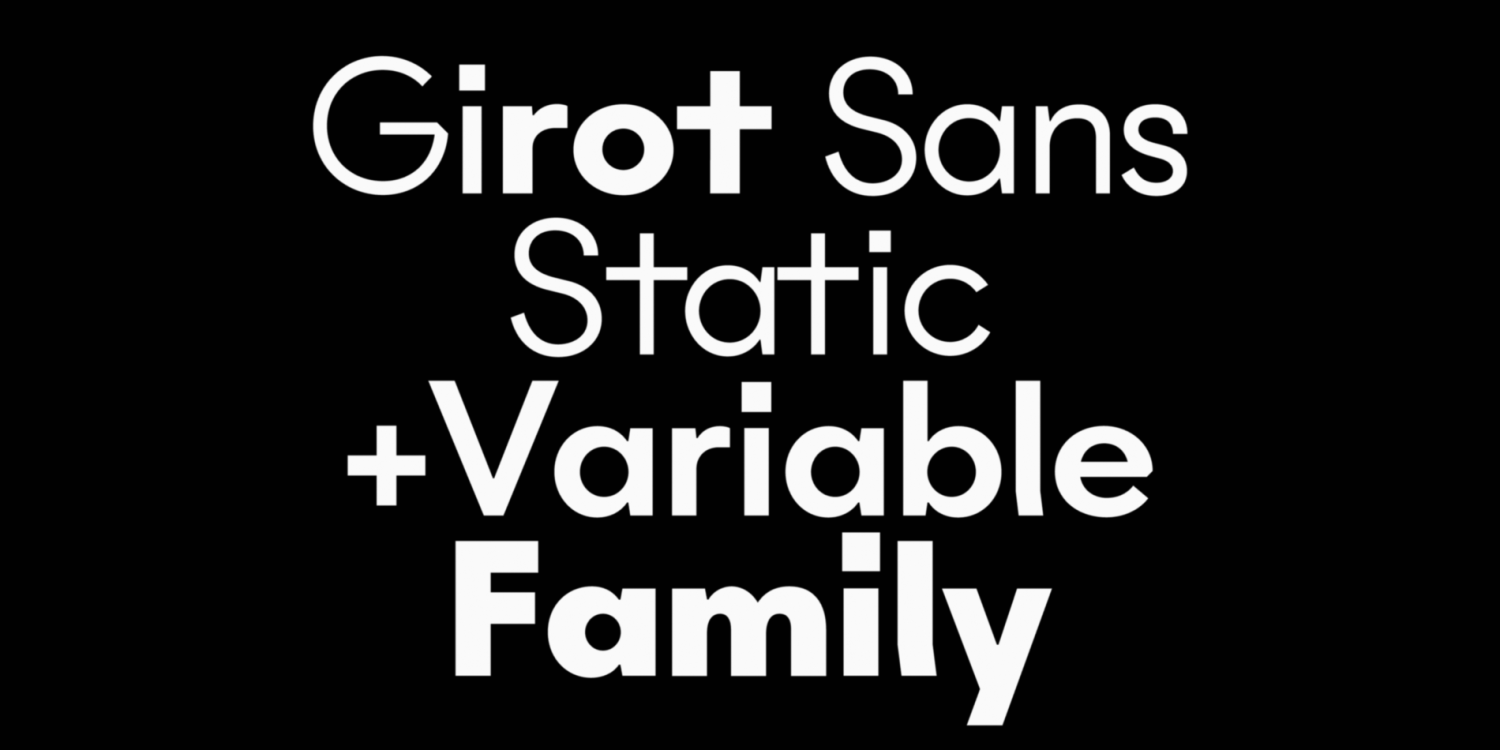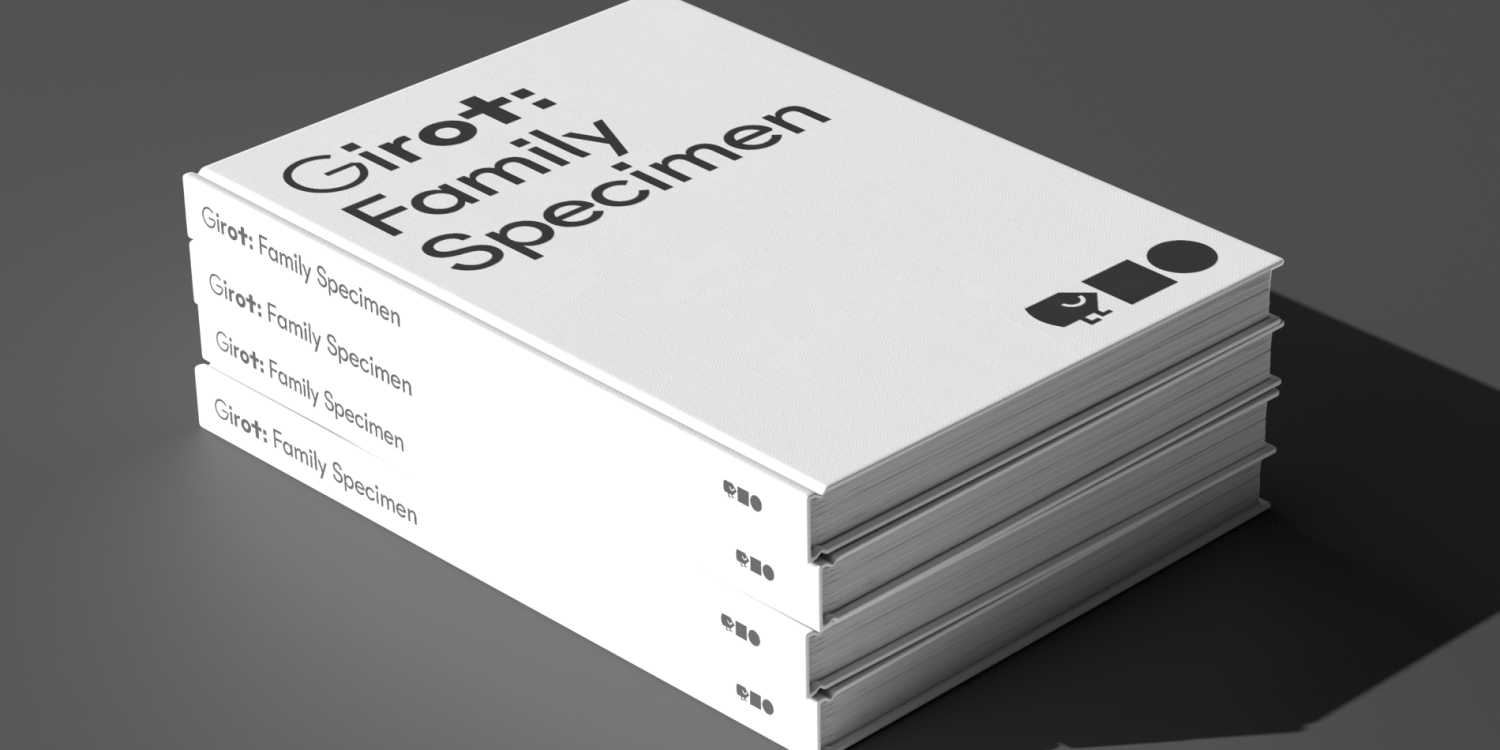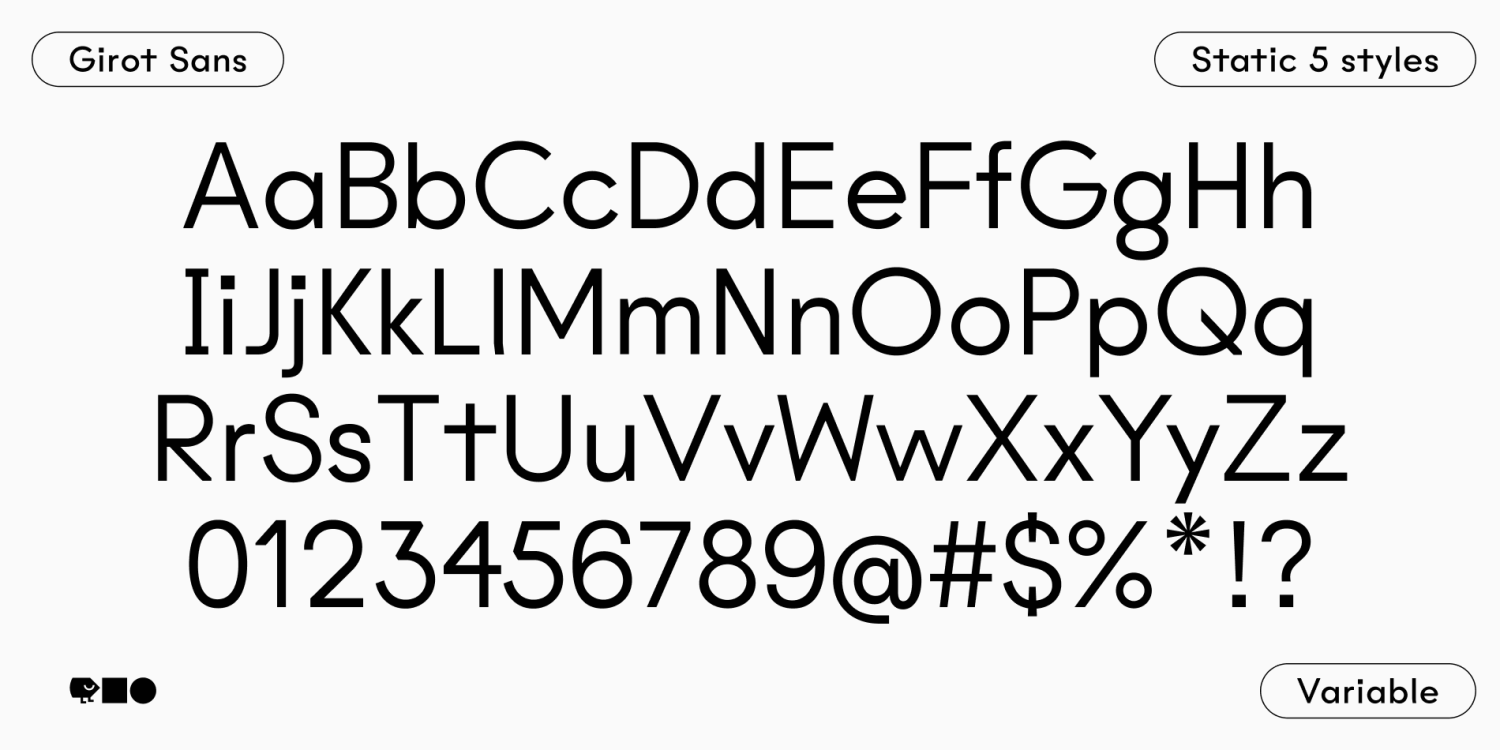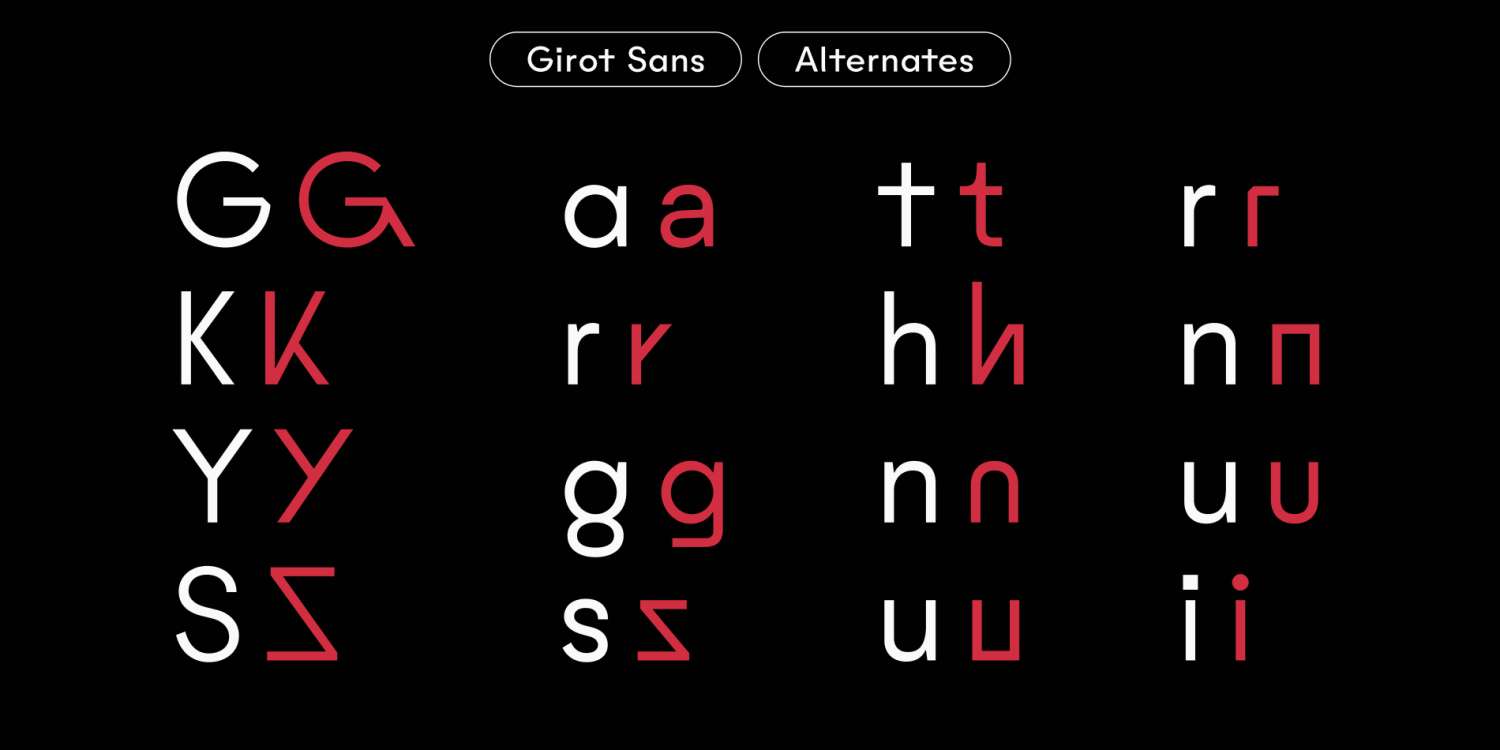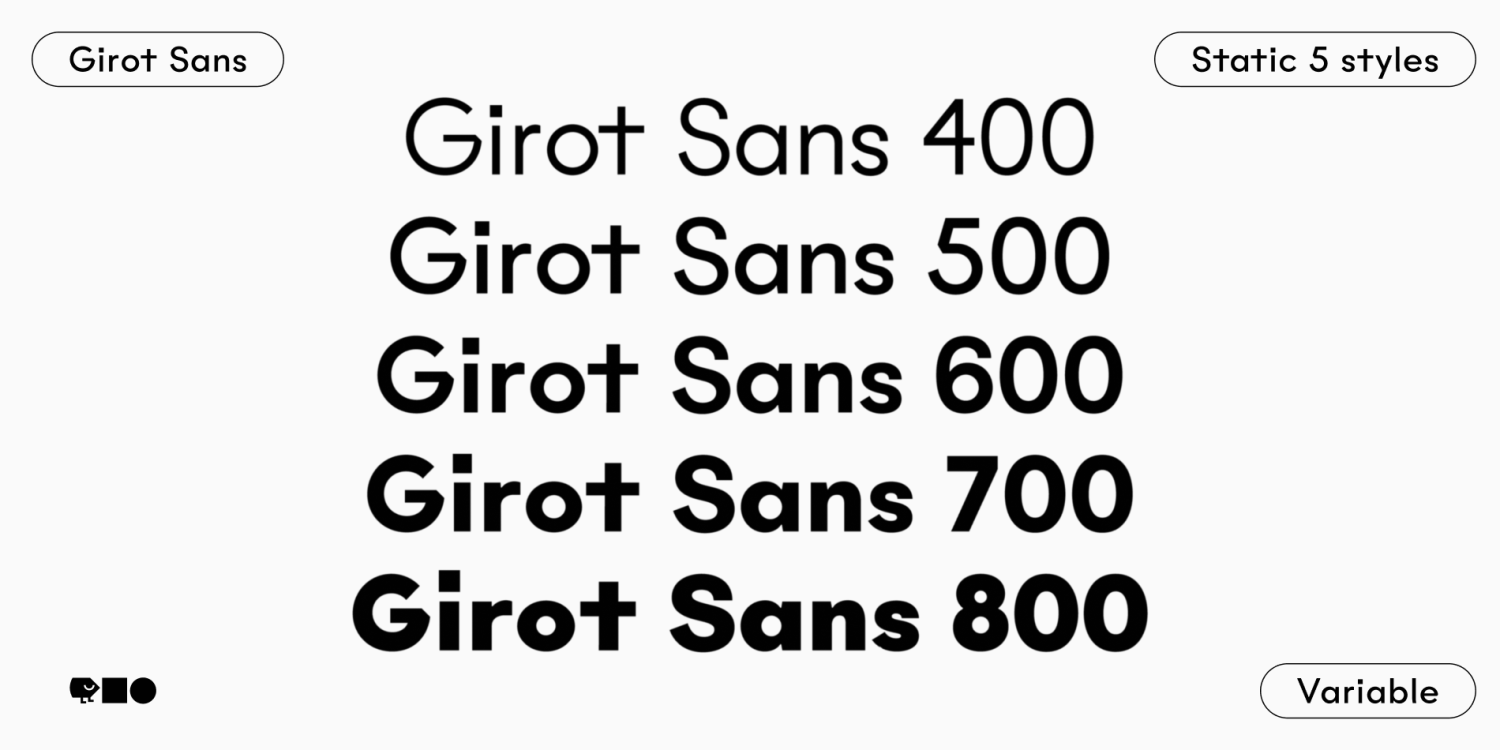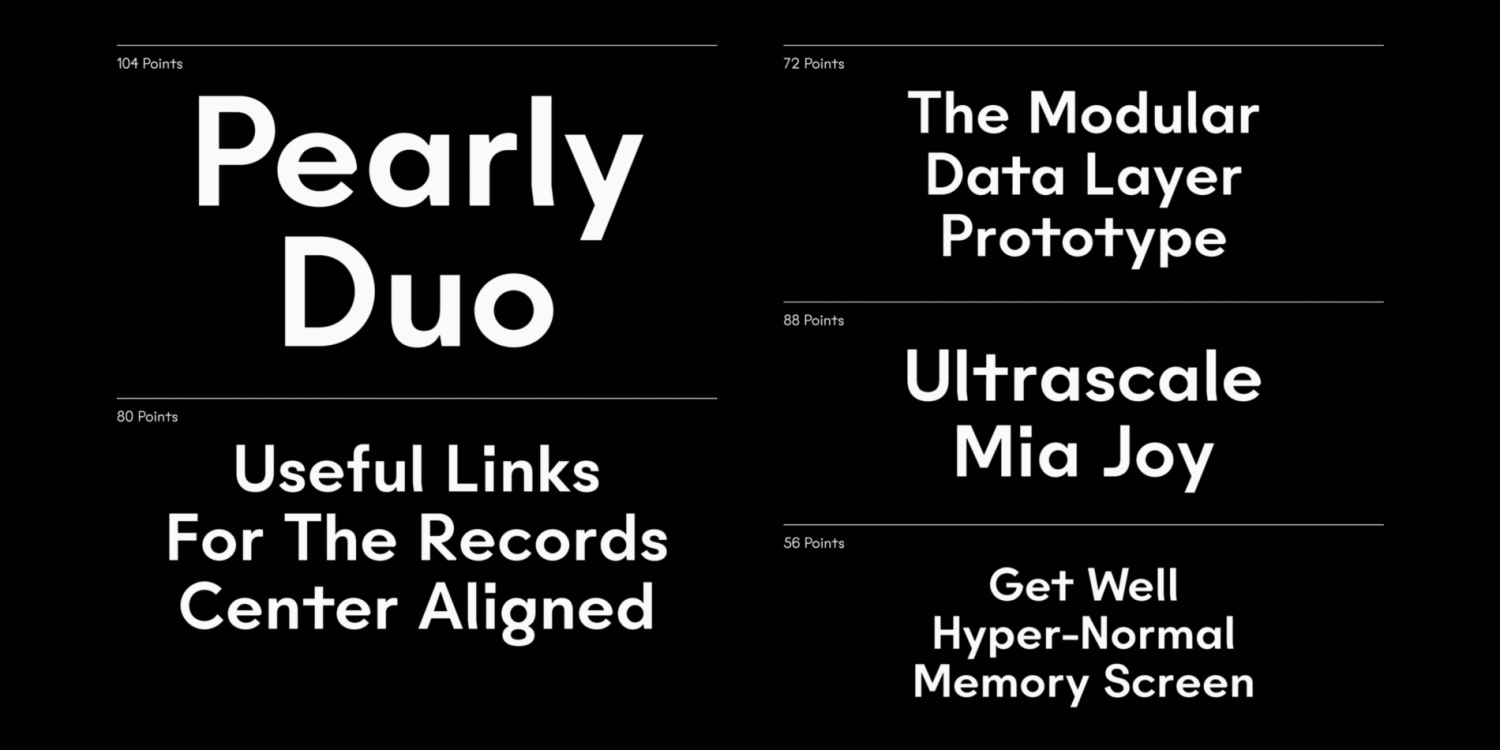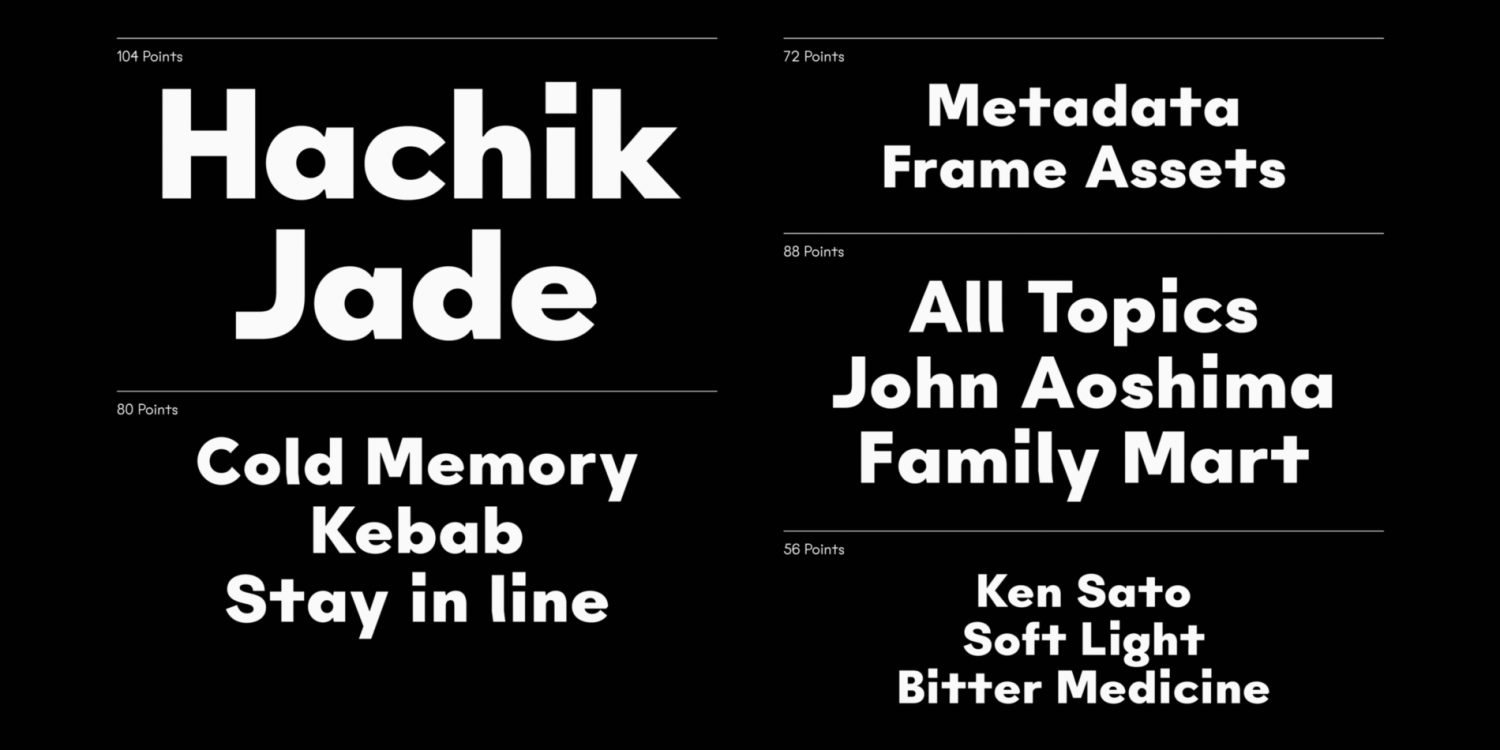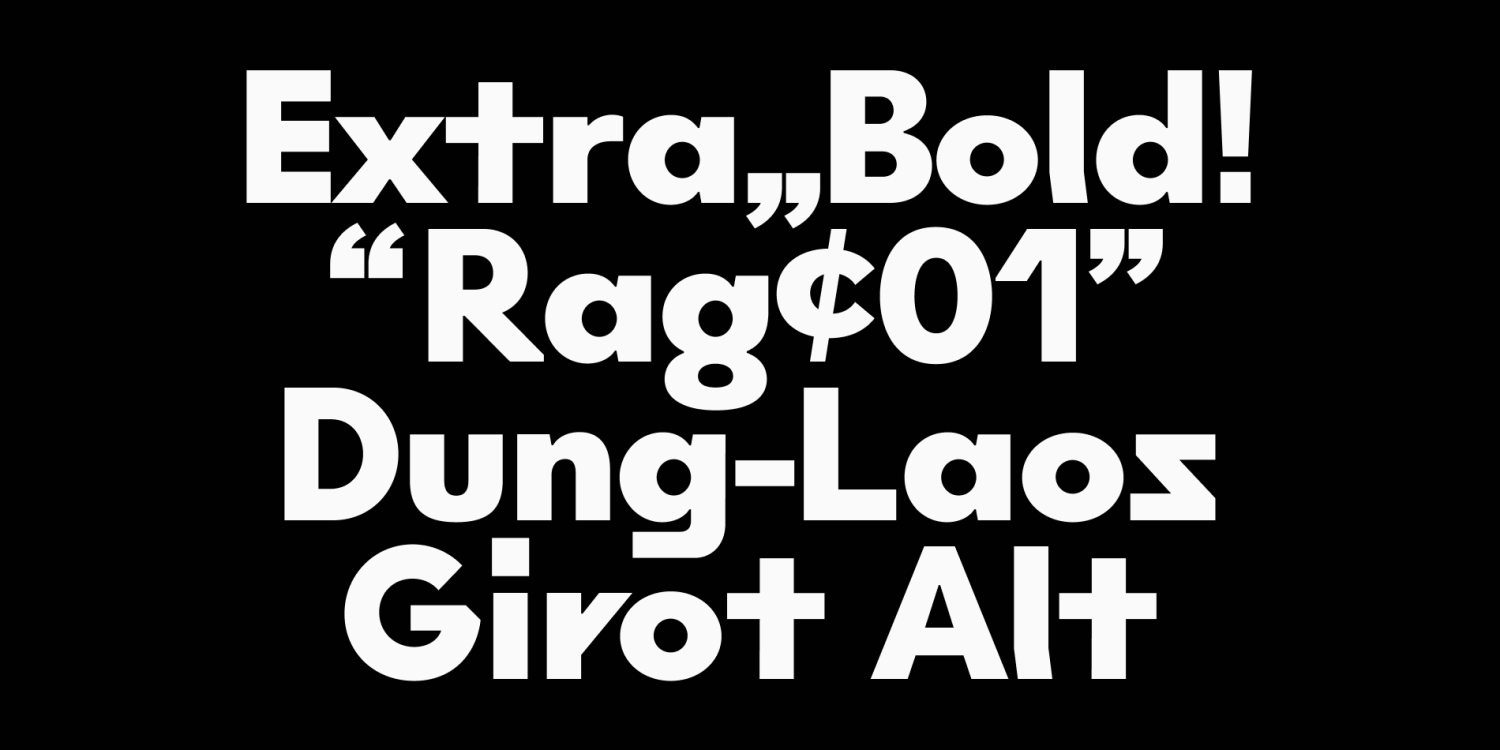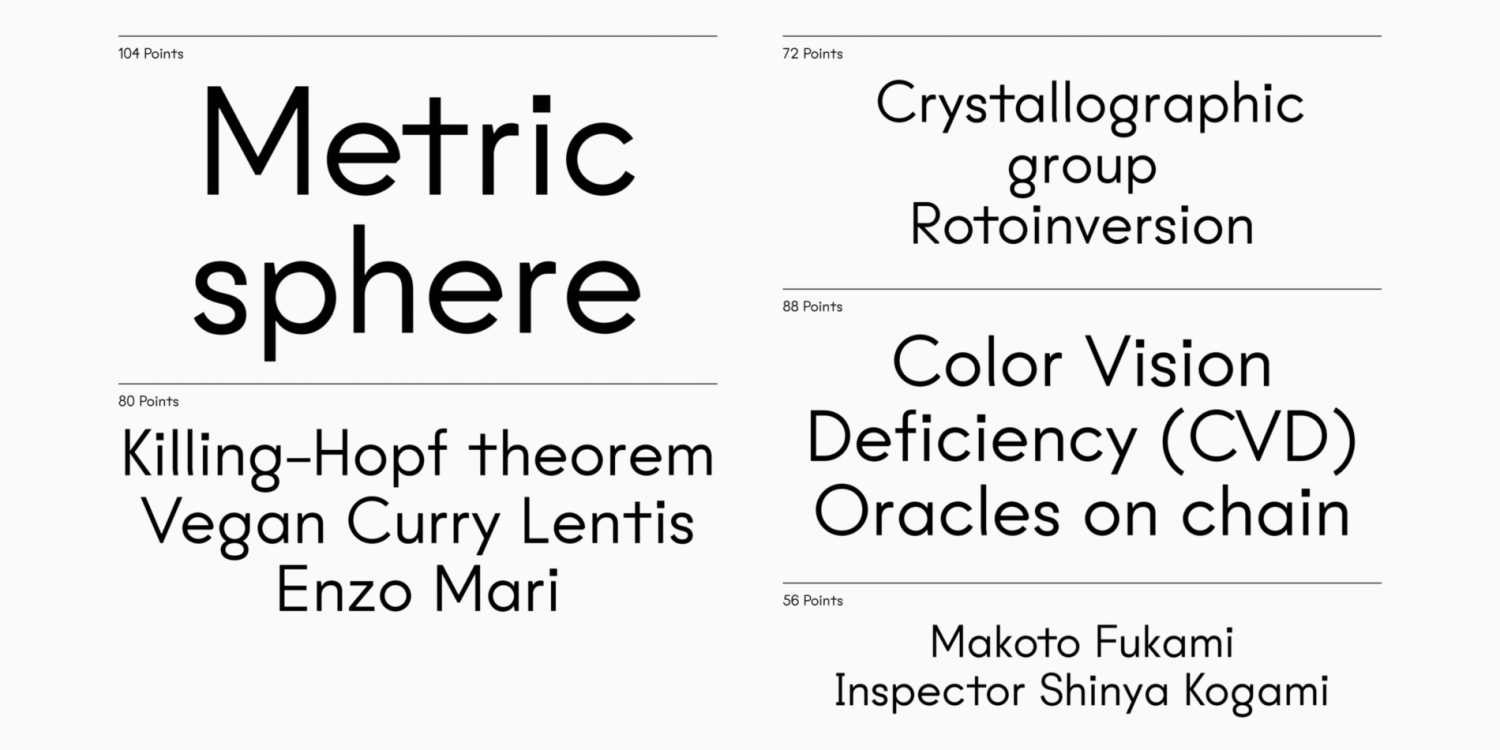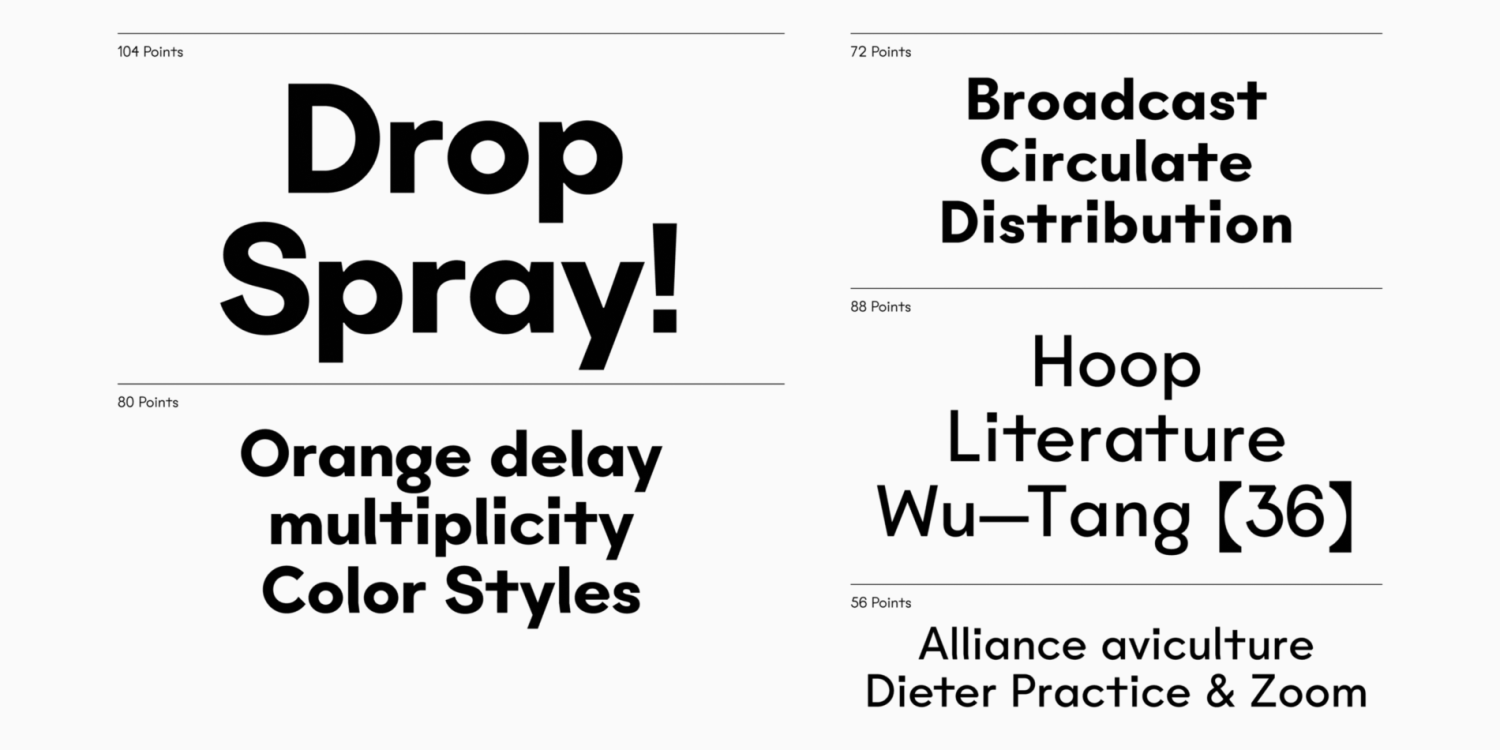
Girot
Font Family by TOMO Fonts
Introducing TOMO Girot Sans, a contemporary sans-serif typeface designed to bring versatility and modernity to your design projects. This typeface family boasts five distinct weights—400, 500, 600, 700, and 800—ensuring it meets a wide range of applications, from subtle body text to striking headlines. Furthermore, the family includes a variable font version, offering even greater flexibility and control over your typography.
Girot Sans is characterized by its clean, geometric lines and consistent stroke widths, resulting in a sleek and modern appearance. This meticulous design ensures high legibility across different sizes and weights. The geometric precision embedded in each character makes it ideal for various uses, including editorial design, branding, advertising, and digital interfaces.
This typeface is perfect for editorial design, giving magazines, newspapers, and digital publications a clean, modern look. In branding, its versatility and modern aesthetic make it ideal for logos, business cards, and other brand materials. For web and app design, the variable font version of Girot Sans is perfect for responsive design, adapting seamlessly across different screen sizes. In advertising, the bold weights create eye-catching headlines and impactful messages in both print and digital ads.
Girot Sans is more than just a typeface; it’s a tool for bringing your creative visions to life with precision, versatility, and modern elegance. Elevate your design projects with the Girot Sans font family and experience the perfect balance of form and function. Whether for everyday use or sophisticated branding, Girot Sans delivers the functionality and style required for contemporary design.